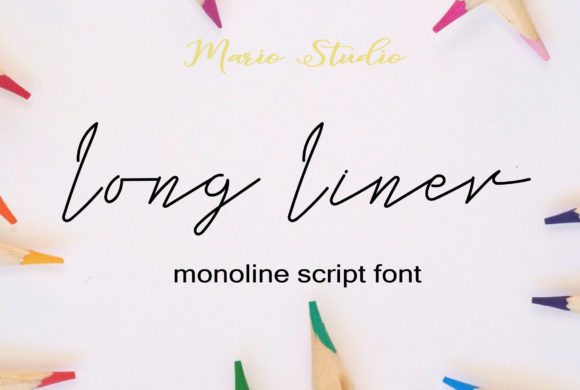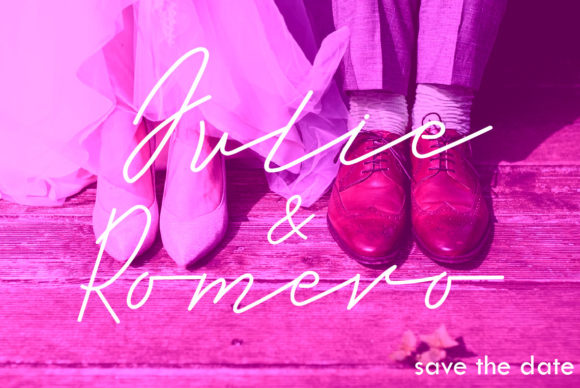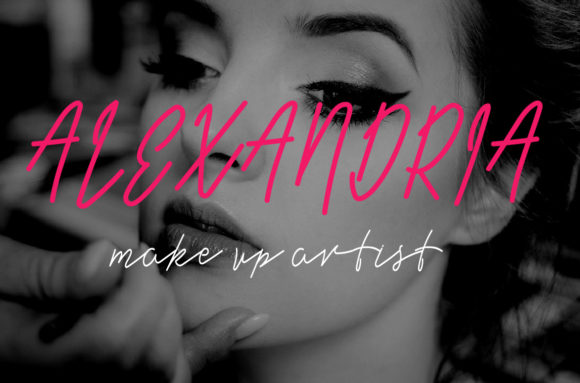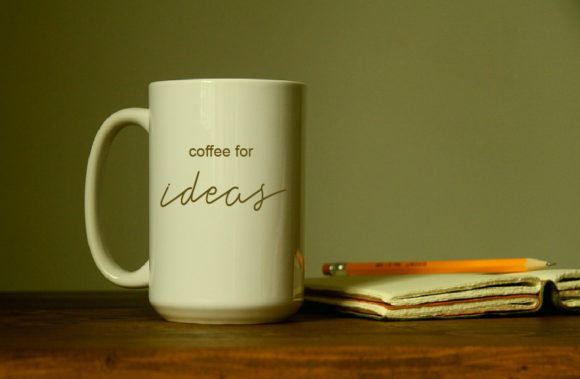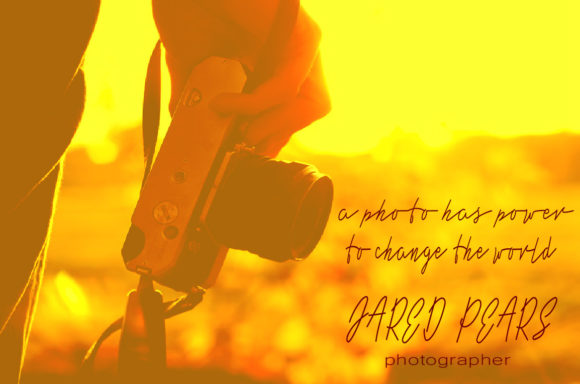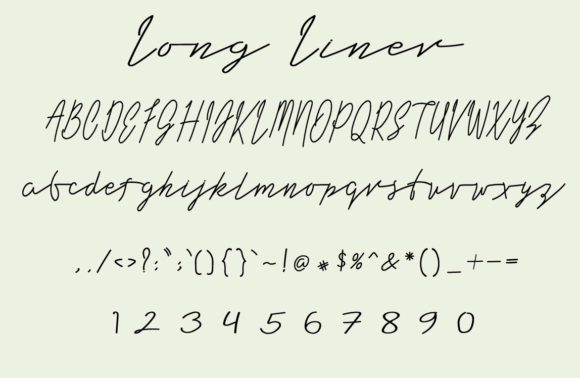
Long Liner Font
About Long Liner Font
The Long Liner is an elegant monoline script font. It has a luxurious feel and a natural writing style.
It’s suitable for logos, watermarks on photography, signatures, quotes, album covers, business cards, clothing, magazines, posters and much more!